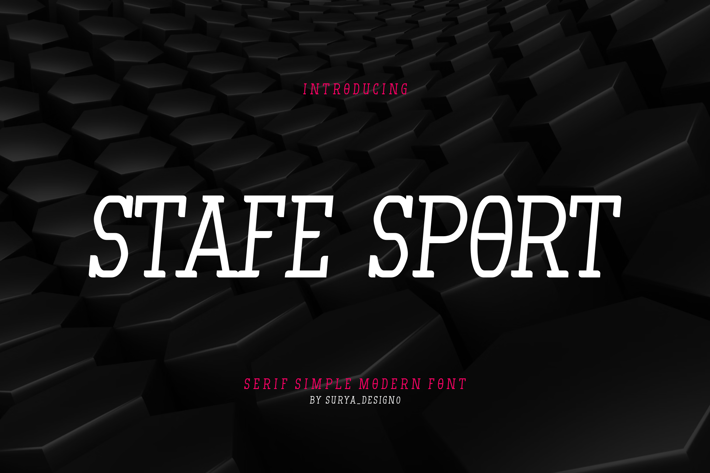
Stafe Sport Fonts
suryadesign0
Introducing our new product Roghan Stafe Sport Fonts modern fonts.
Roghan Adventure Fonts modern font is a bold and authentic display font. The font is suitable for any branding project like logo, t-shirt printing, esport, and many more. Outstanding in a wide range of contexts.
-Uppercase
Roghan Adventure Fonts modern font is a bold and authentic display font. The font is suitable for any branding project like logo, t-shirt printing, esport, and many more. Outstanding in a wide range of contexts.
-Uppercase